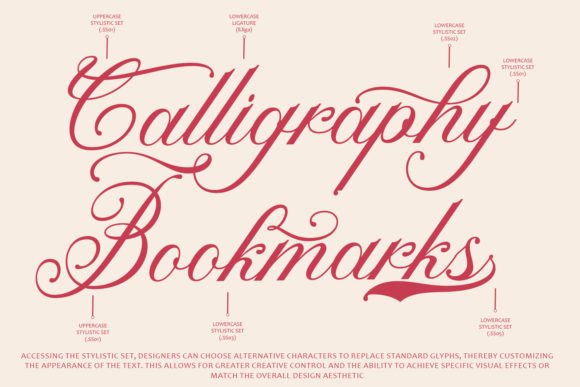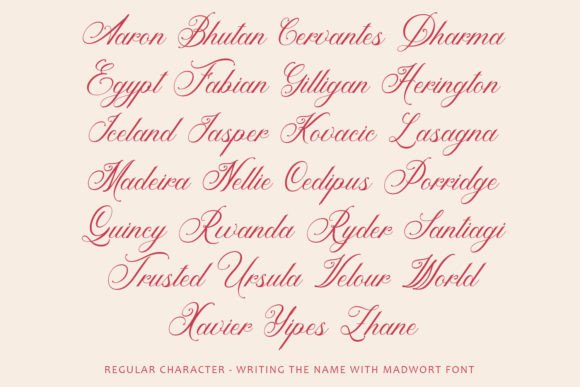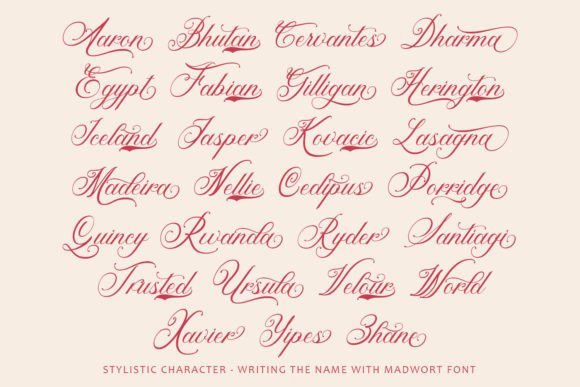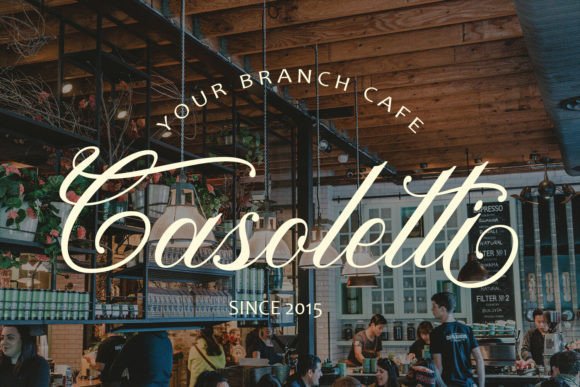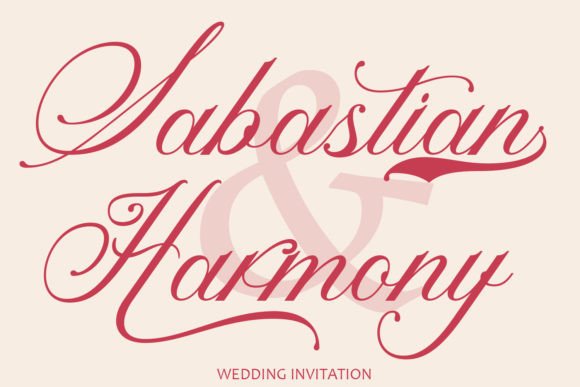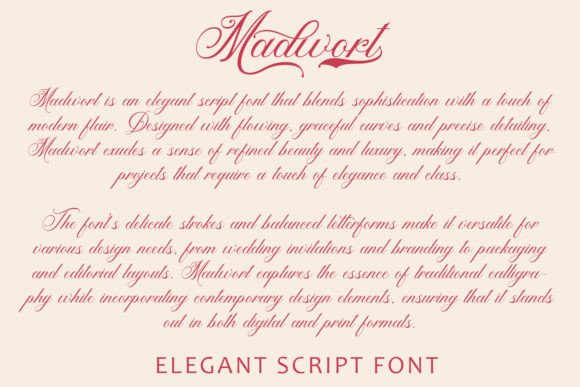
Introduction to Madwort Font
Do you remember the thrill of finding that perfect font for your creative project? The one that makes your design stand out and leaves a lasting impression on your audience? For many designers, that moment comes when they discover the elegant and charming Madwort Font.
With its flowing, graceful curves and delicate strokes, Madwort Font adds a personal and sophisticated touch to any design. Whether you’re working on a logo, invitation, or branding project, this stylish handwritten script font is sure to elevate your work. And the best part? It’s available for free download, making it a valuable resource for designers of all levels.
As a high-quality design resource, Madwort Font is perfect for anyone looking to add a touch of elegance and charm to their projects. Its transparent background makes it easy to layer and combine with other fonts, giving you endless possibilities for creative expression.
- Unique, modern design aesthetic that adds a touch of sophistication to any creative project.
Honest Review: Madwort Font
I recently had the chance to work with the Madwort Font for a creative project and I must say, I was quite impressed. As a designer, it’s always exciting to find high-quality design resources that can elevate my work.
- ✨ The Madwort Font has a unique and elegant design that adds a touch of sophistication to any project. The font is well-suited for creative projects that require a high level of refinement.
- ⚠️ The font is not as comprehensive as some other font families, with limited language support and no italic or bold variants.
Overall, I was impressed with the Madwort Font and would recommend it to designers looking for a high-quality, elegant font for their creative projects. While it may have some limitations, it’s a great resource to have in your design arsenal.
For the most effective use of the Madwort Font, pair it with a bold design element to create visual interest. Common use cases include creating invitations, social media graphics, or promotional materials.